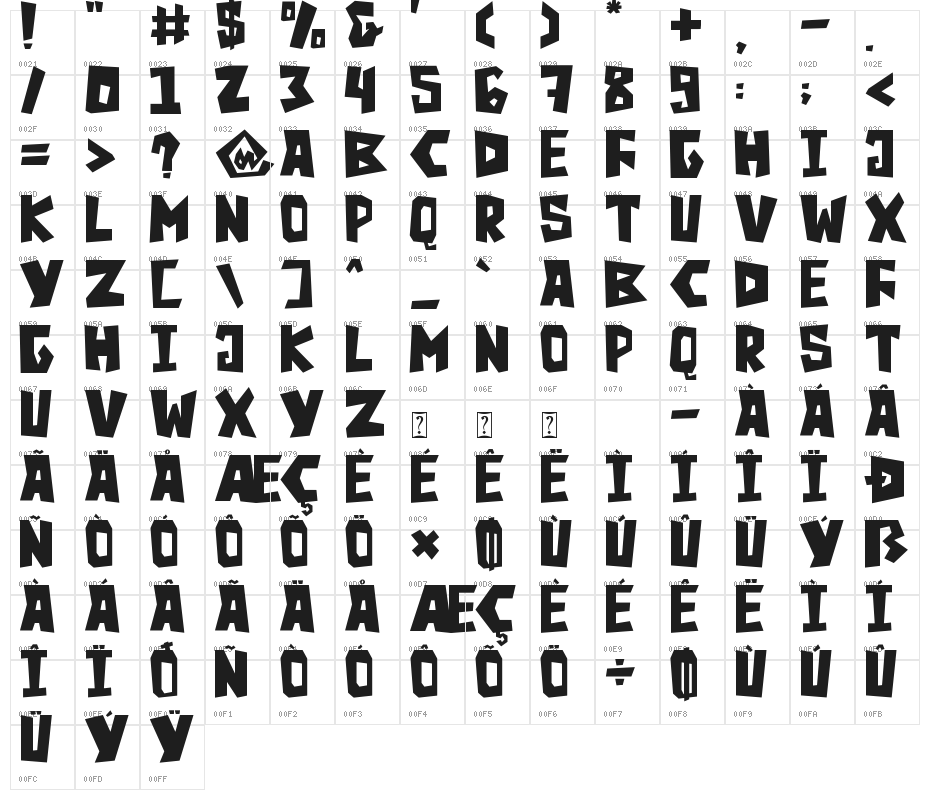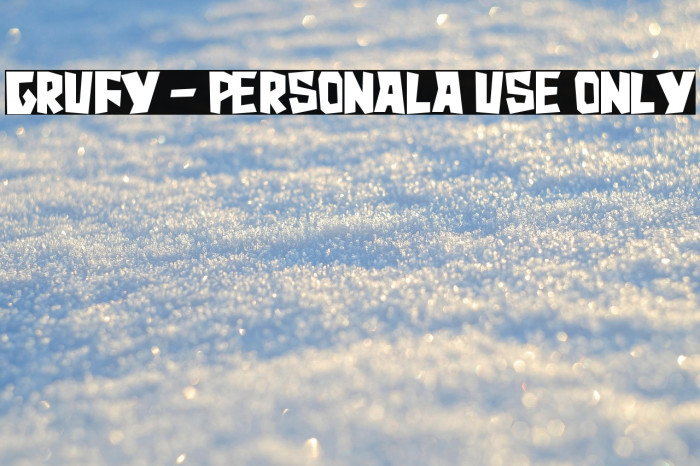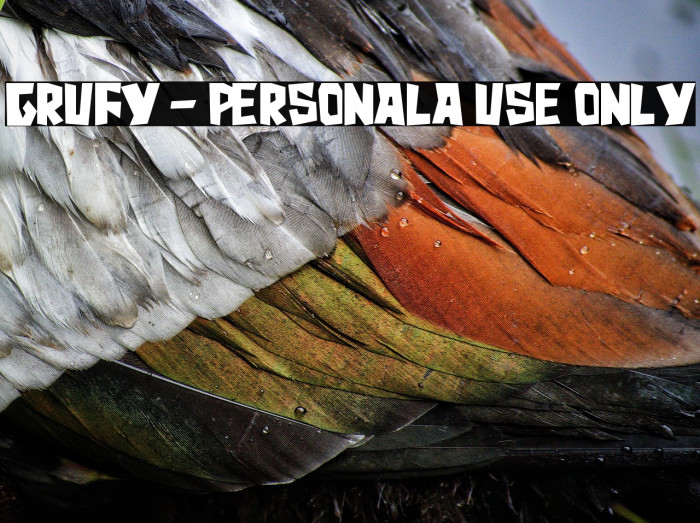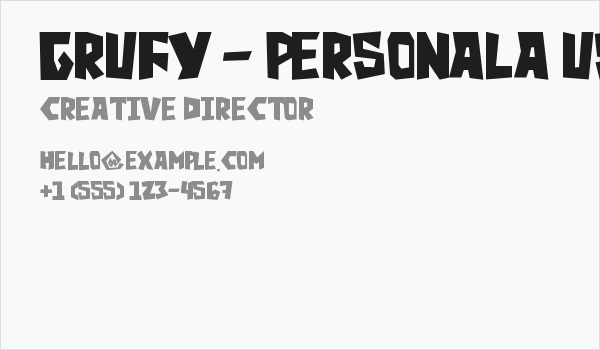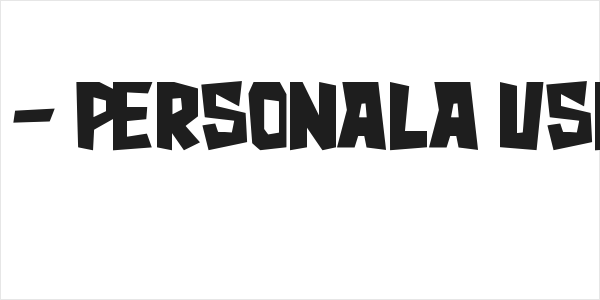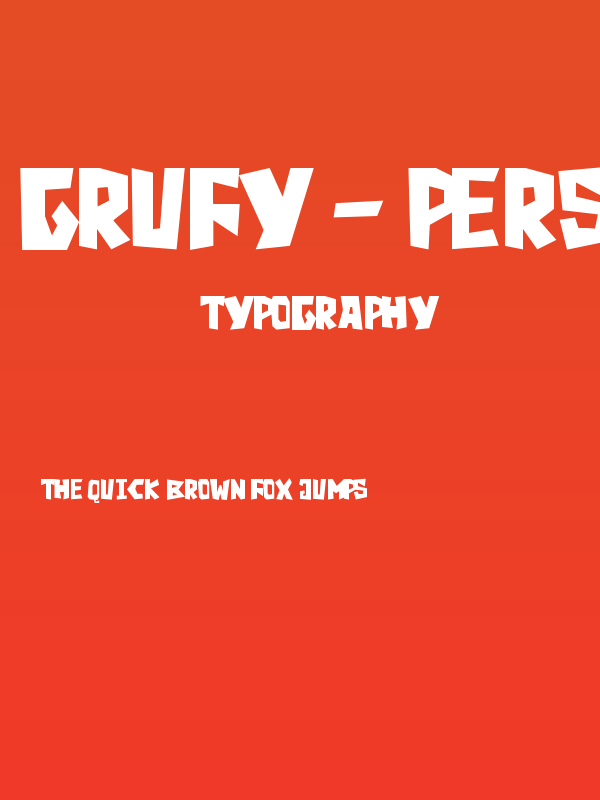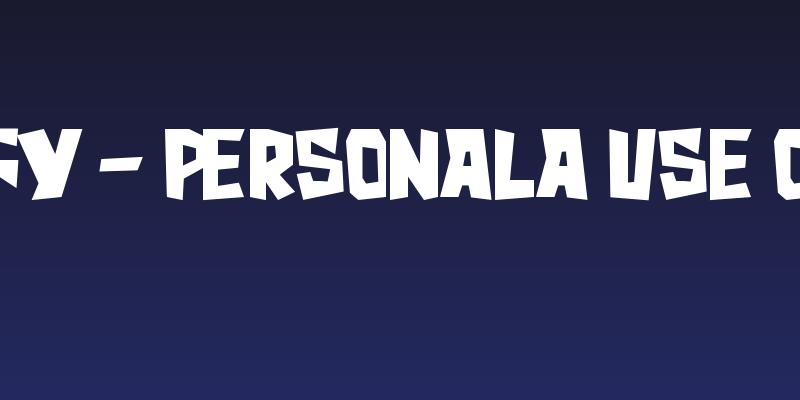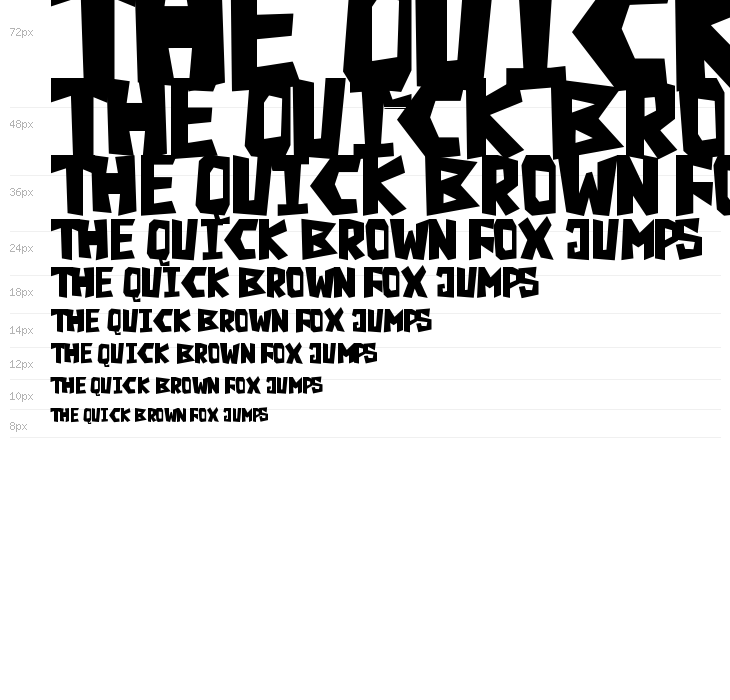
Grufy - Personala use only Font
Grufy - Personala use only Description
This font features a bold, edgy design with a distinctly urban and graffiti-inspired aesthetic. The characters are constructed with sharp angles and irregular shapes, giving them a dynamic and energetic appearance. Each letter is uniquely stylized, contributing to a sense of movement and creativity. The uppercase and lowercase letters maintain a consistent style, while the numbers and special characters add to the overall boldness. This font's strong visual impact makes it ideal for projects that require a standout, unconventional look.
| Overall Style | Modern, Urban |
| Proposed Projects | Perfect for street art designs, music album covers, urban-themed posters, and edgy branding projects. |